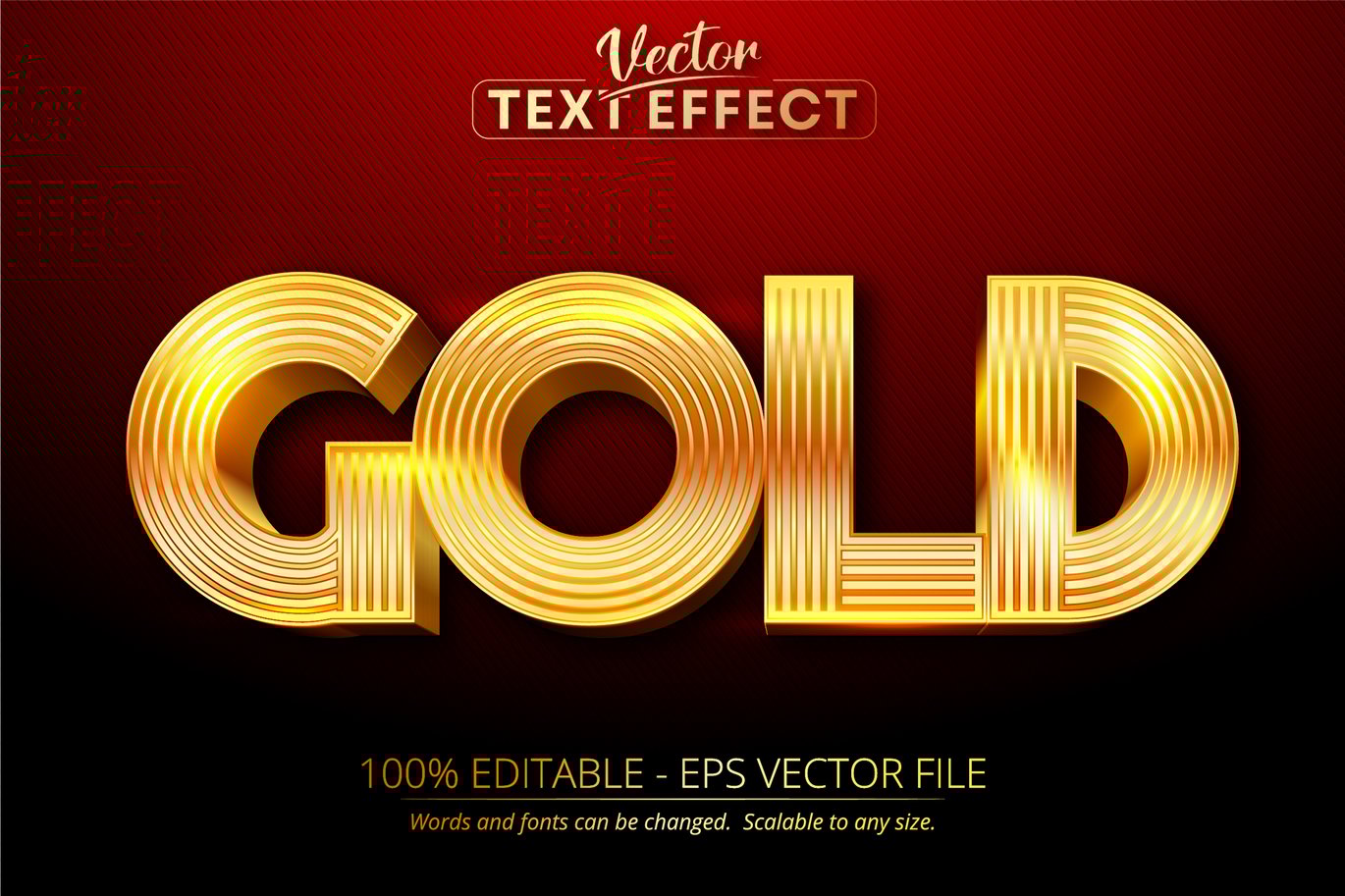
Gold – Editable Text Effect, Font Style
I am happy to present you my new gold style text effect design. Just edit the text and type whatever you want. The effect will be applied. Open this text effect with Adobe Illustrator and use it in any project you want. Easily edit the effect and increase the size without losing quality.